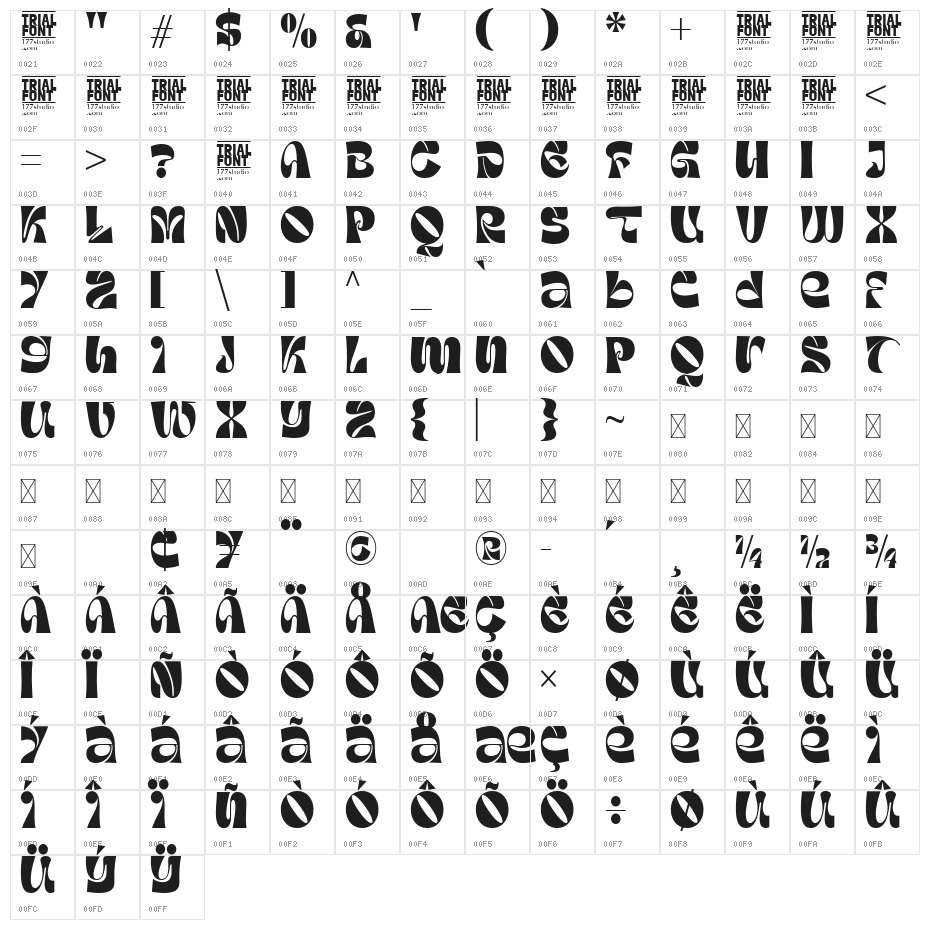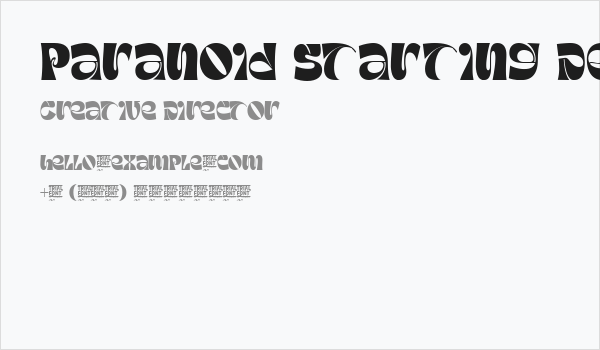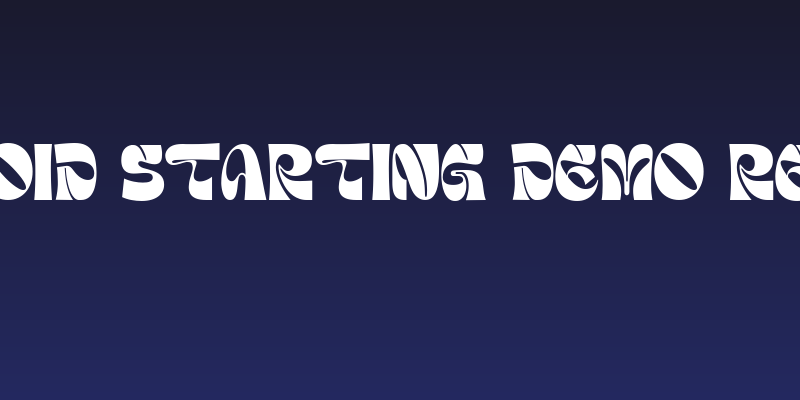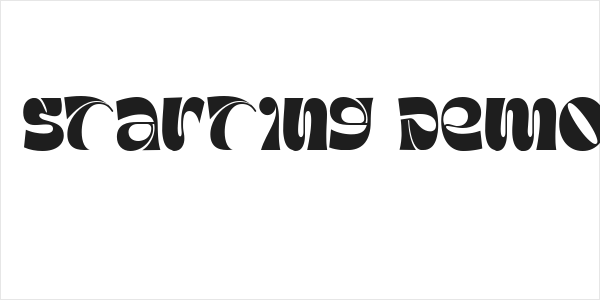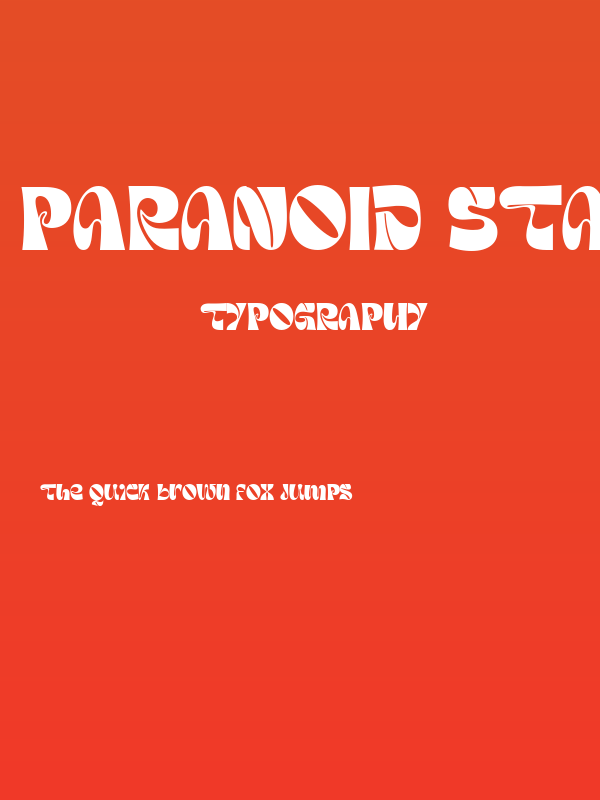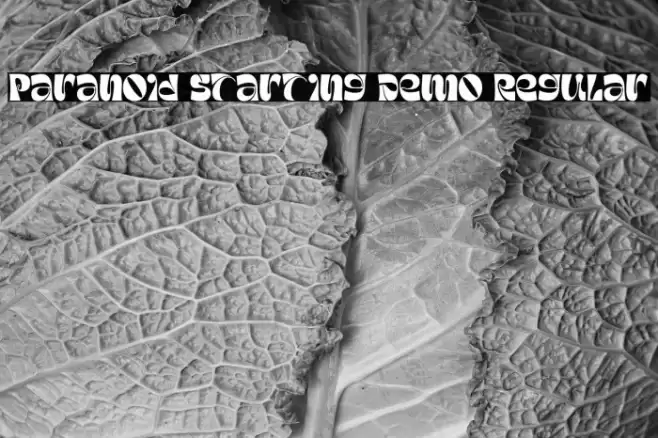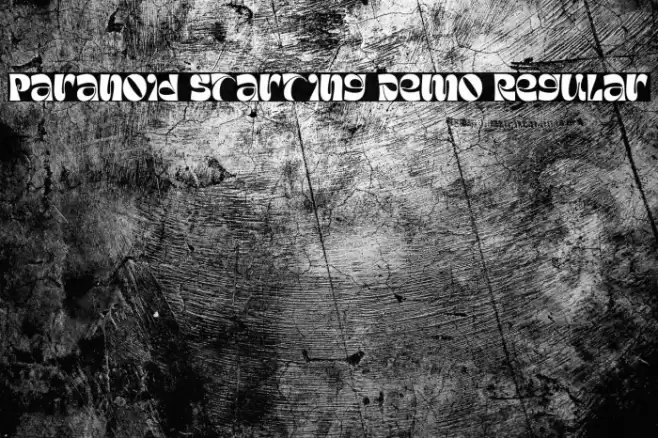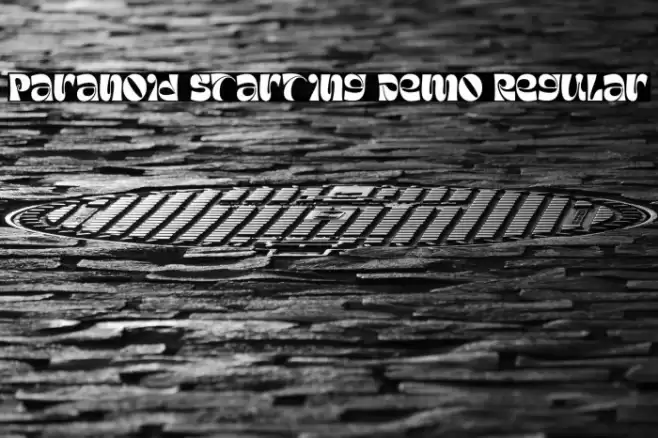
Paranoid Starting Demo Regular Font
Paranoid Starting Demo Regular Description
This font features a bold and dynamic design with a unique, artistic flair. Each character is crafted with a blend of thick and thin strokes, creating a high contrast that draws attention. The letters have a playful and abstract form, with some characters incorporating unexpected curves and angles, giving the font a modern and avant-garde appearance. The overall style is decorative, making it ideal for creative projects that require a standout typeface. The spacing between characters is tight, enhancing the compact and cohesive look of the text.
| Proposed Projects | Ideal for posters, album covers, branding, and any project needing a bold, artistic touch. |